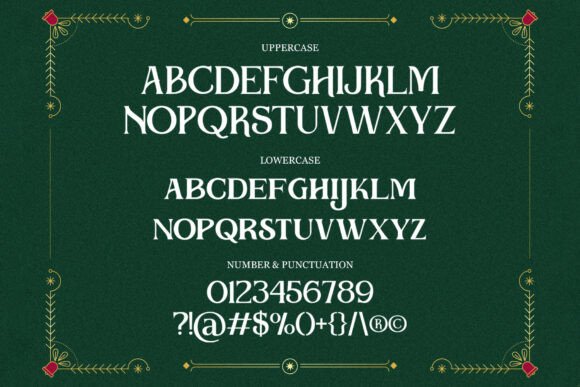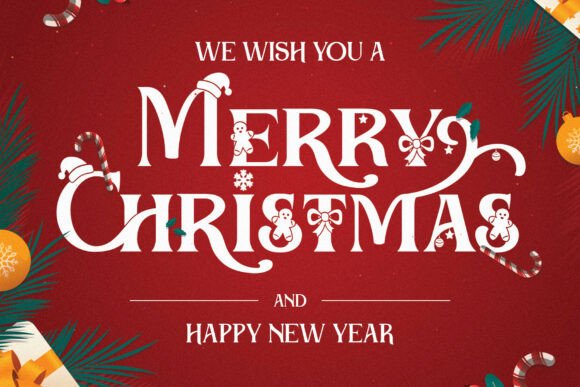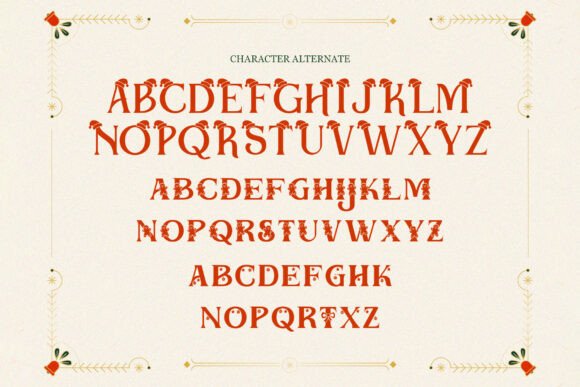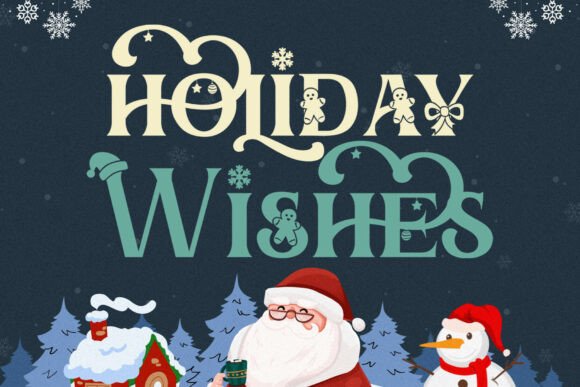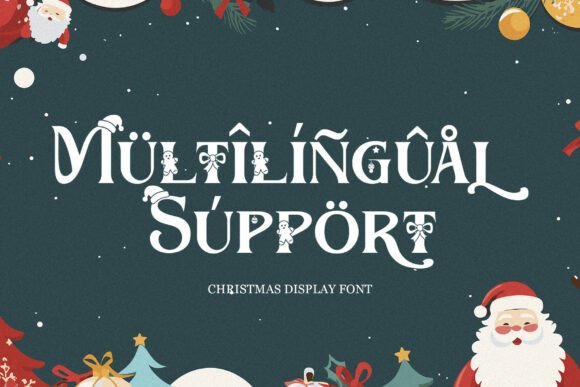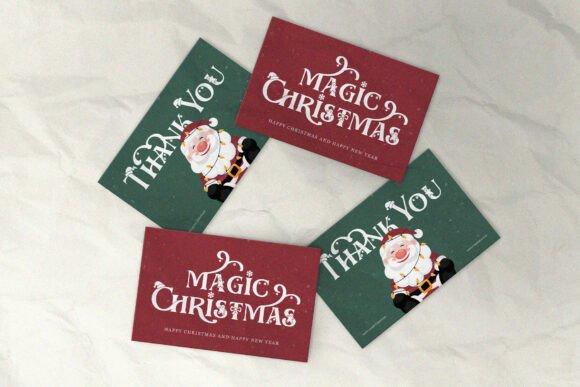
Deck the Halls with Type: Discover the Magic of Christlight Regular Font
As the holiday season approaches, designers everywhere are on the hunt for the perfect font to capture the essence of the most wonderful time of the year. It’s that moment when you’re browsing through your favorite font library, scrolling through row after row of fonts, and suddenly, you stumble upon a hidden gem that makes your heart skip a beat.
This is exactly what happens when you lay eyes on Christlight Regular Font – a festive decorative serif font designed to bring holiday cheer to your designs. With over 200+ glyphs, this font is a treasure trove of Christmas-themed alternates, including ornaments, gingerbread, snowflakes, and ribbons. Whether you’re creating Christmas cards, holiday invitations, or product packaging, Christlight Regular Font is the perfect addition to your holiday design arsenal.
- Unique Characteristics: Distinctive, elegant design with a touch of sophistication; ideal for formal and professional applications
Christlight Regular Font Review
I’ve had the chance to work with the Christlight Regular font, and I must say it’s a unique addition to any design project. ✨ Its elegant, vintage vibe can add a touch of sophistication to any text-based element.
- Its high x-height makes it easy to read, even at smaller font sizes.
- The font’s subtle flair at the terminals of the strokes creates a sense of movement and flow.
- It pairs well with modern sans-serif fonts, making it a great choice for designs that need a mix of old and new.
However, there are a few limitations to keep in mind: ⚠️
- The font’s weight range is somewhat limited, which can make it harder to create bold or italic text.
- It may not be the best choice for highly technical or scientific content, as the font’s styling can make complex information harder to read.
Overall, the Christlight Regular font is a great choice for designs that need a touch of elegance and sophistication. While it may have some limitations, it’s a versatile font that can add a unique touch to a wide range of projects.
Getting the Most Out of Christlight Regular Font
To get the most out of Christlight Regular Font, try using it for:
- Body text in formal documents
- Signage and display text
Christlight Regular Font is commonly used for:
- Wedding invitations
- Business presentations
- Choose a bold and eye-catching quote that resonates with your audience.
- Use Christlight Regular Font for the quote, adjusting the font size to make it the focal point of the poster.
- Add a simple background color or texture to complement the font.
- Embellish with a few strategically placed design elements, such as a minimalist icon or a subtle pattern.
- Pair Christlight Regular Font with a contrasting background color to make the quote stand out.
- Add a subtle gradient or texture to give the poster depth and interest.
- Use Christlight Regular Font for the business name and tagline, adjusting the font size to balance with the other design elements.
- Pair Christlight Regular Font with a sans-serif font, such as Open Sans or Lato, for the contact information.
- Add a modern design element, such as a geometric shape or a minimalist icon, to give the business card a unique touch.
- Emphasize the business name by using a larger font size or a bold weight
3 Creative Project Ideas using Christlight Regular Font
Create a visually appealing quote poster using Christlight Regular Font. This font is perfect for minimalist designs due to its clean and simple lines.
Project 2: Modern Business Card Design
Create a sleek and professional business card design using Christlight Regular Font. This font is ideal for modern and corporate designs due to its clean and sophisticated lines.